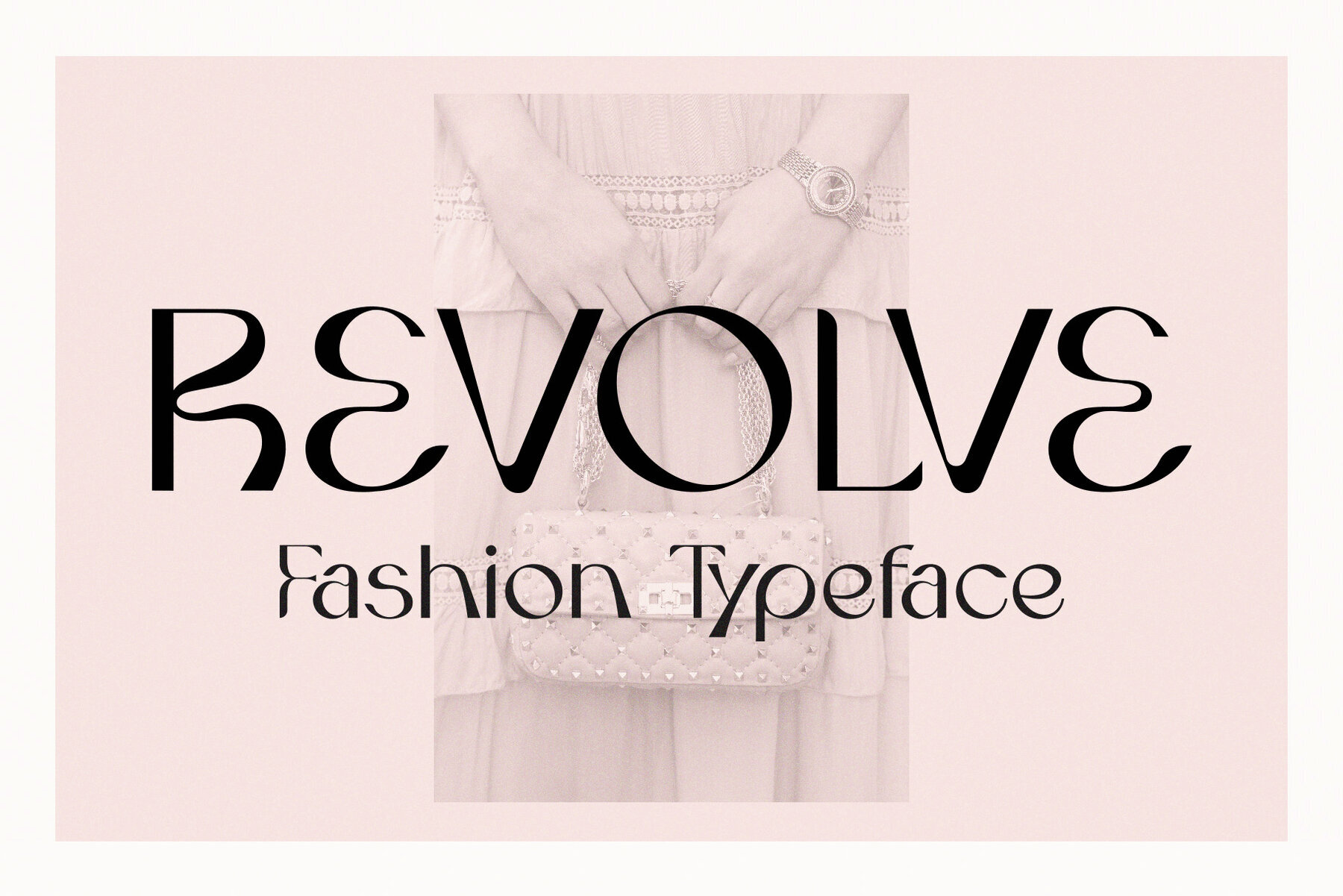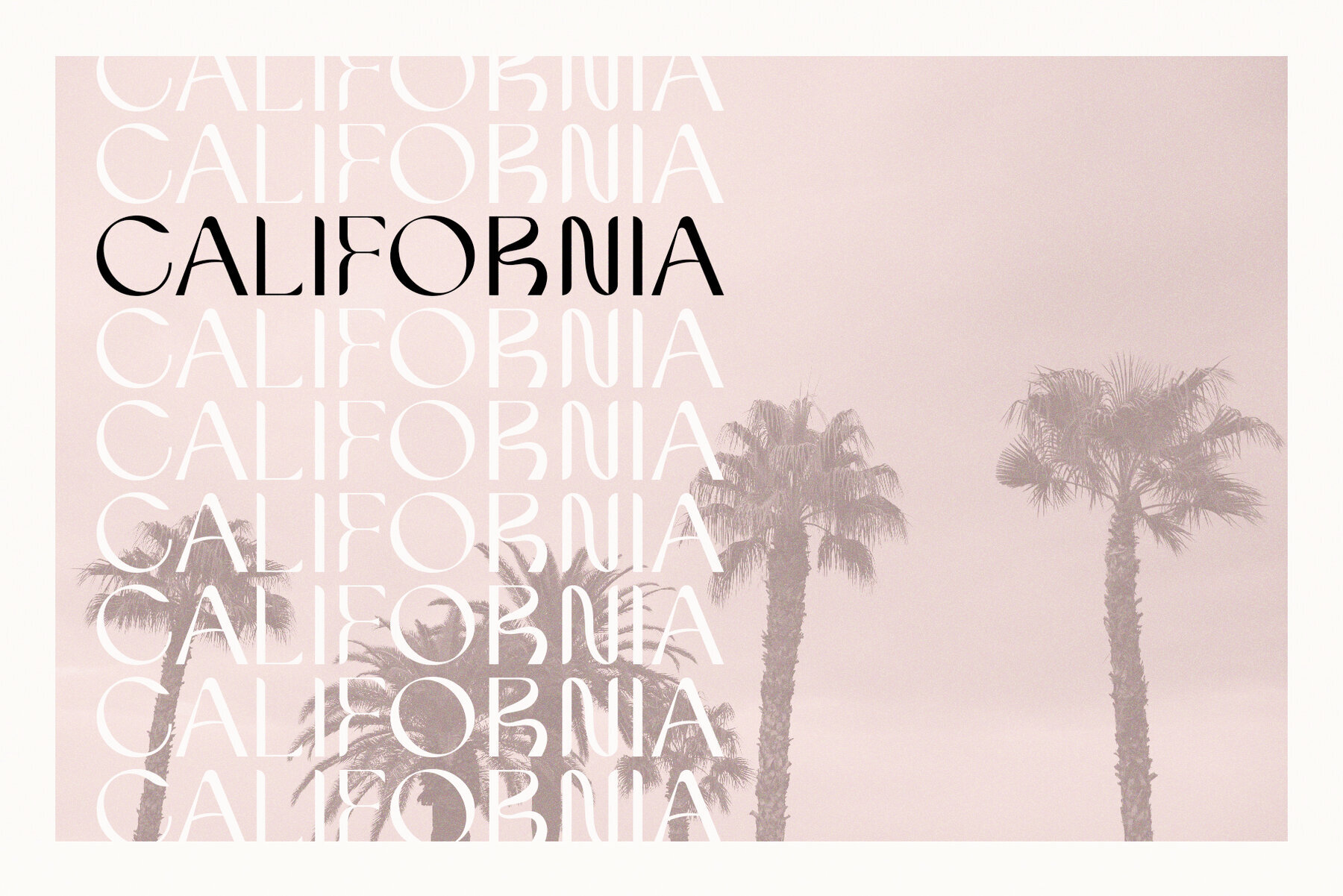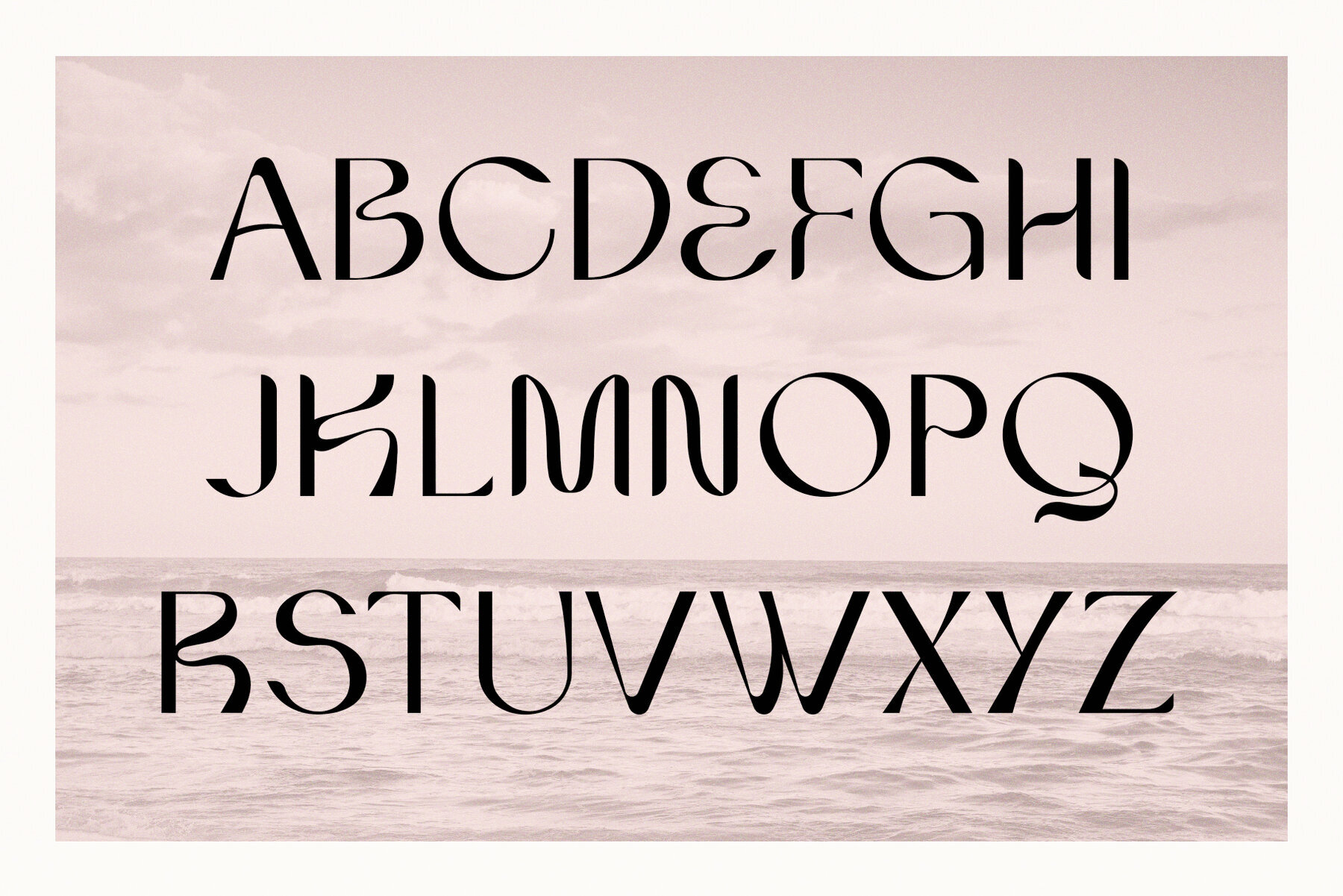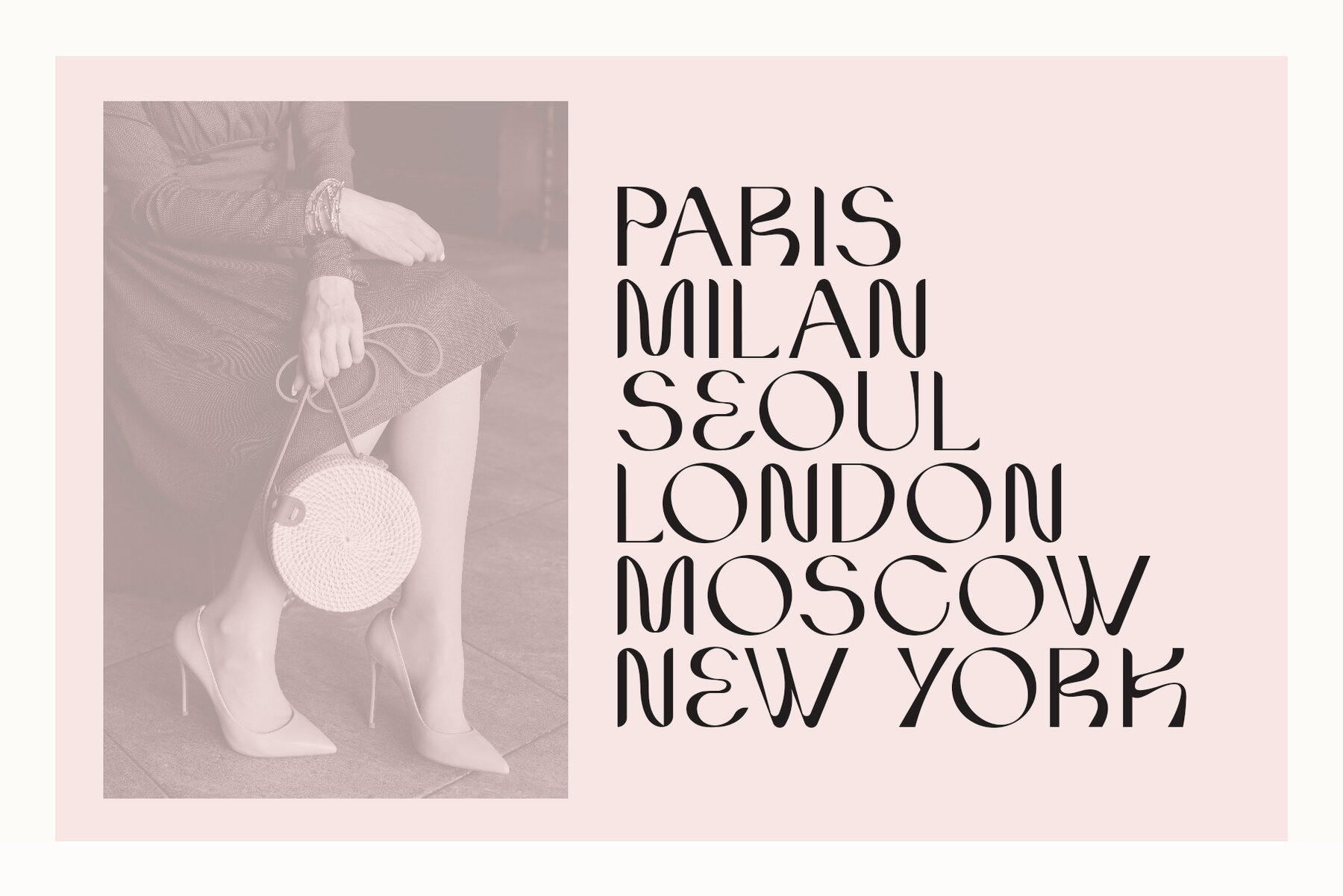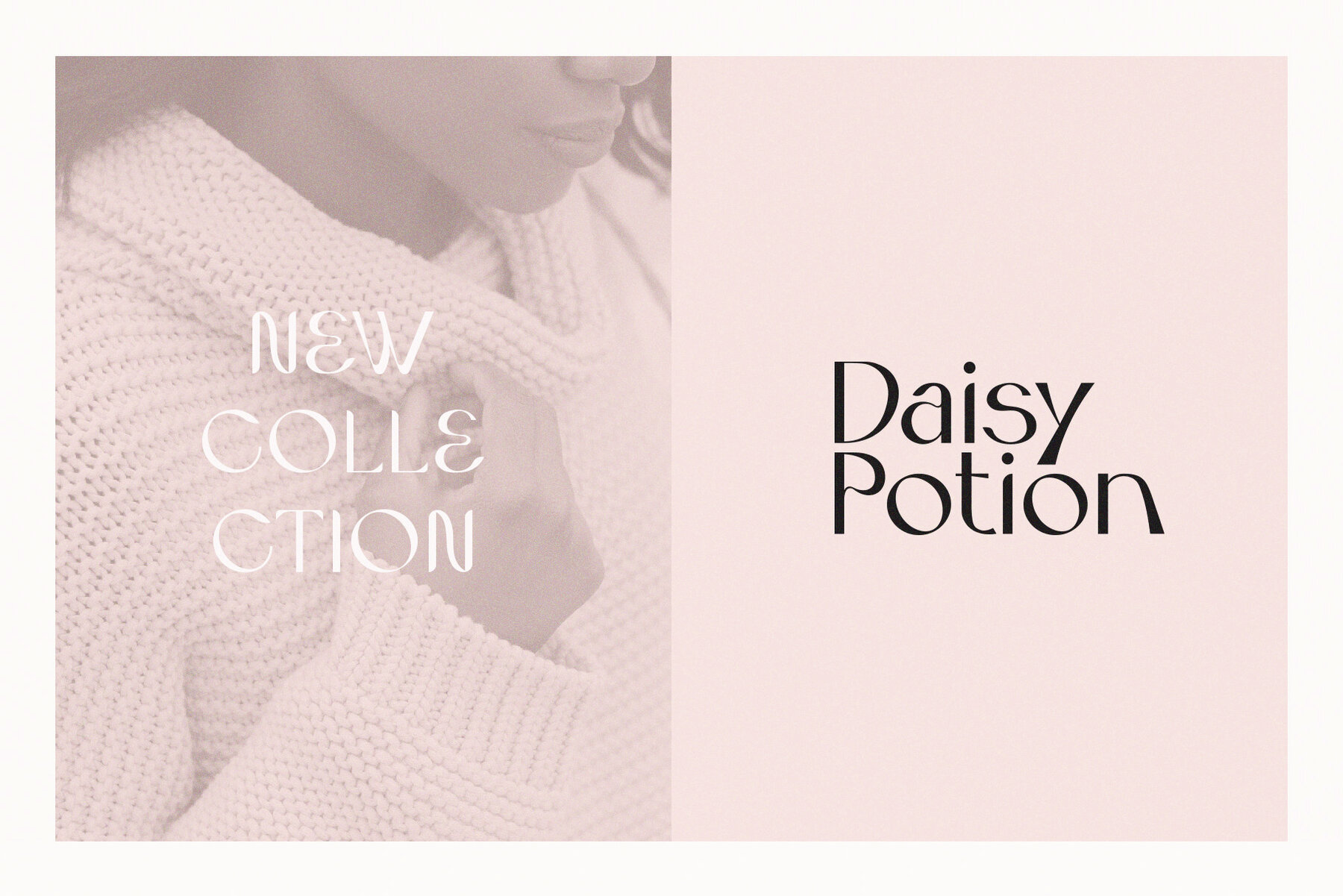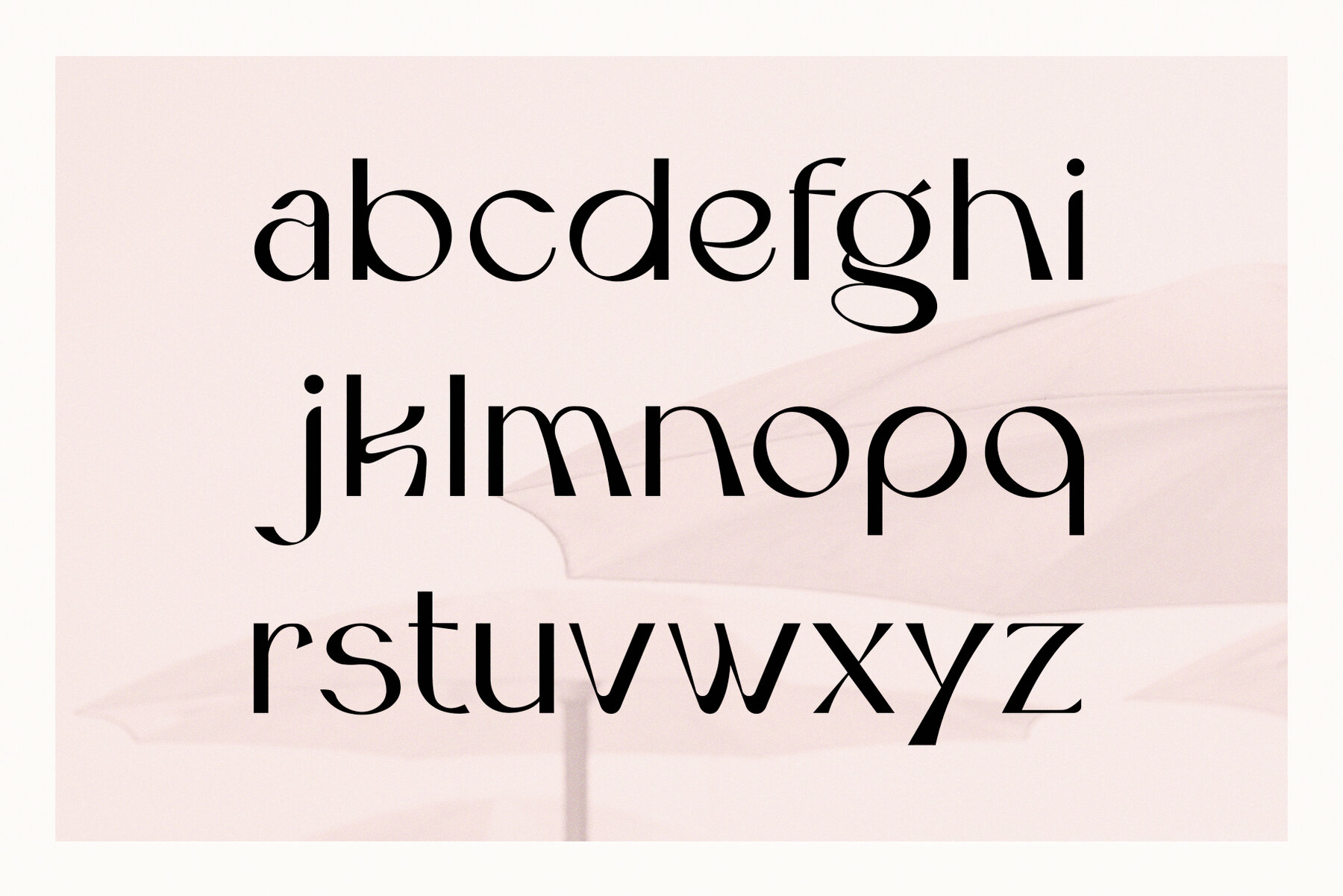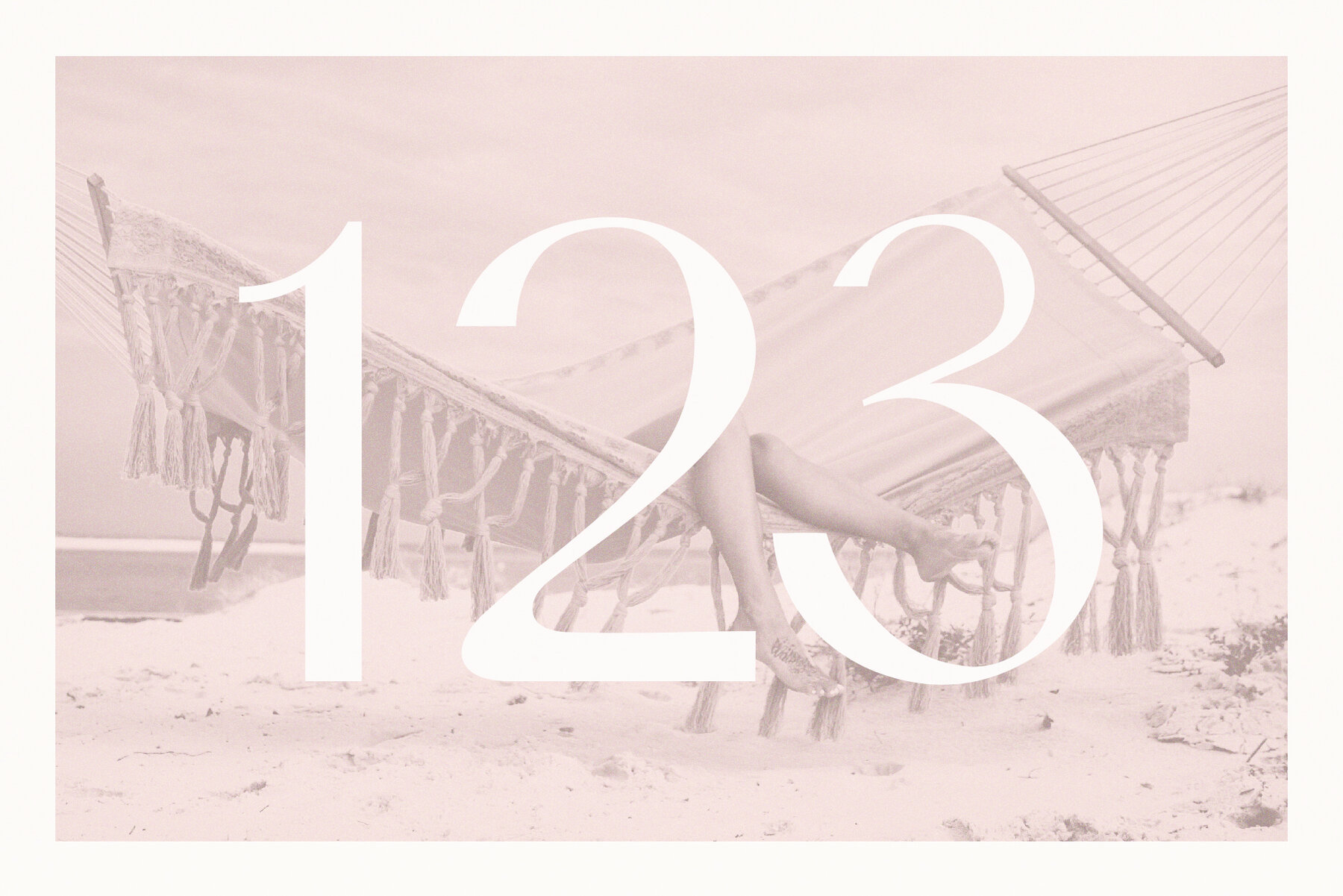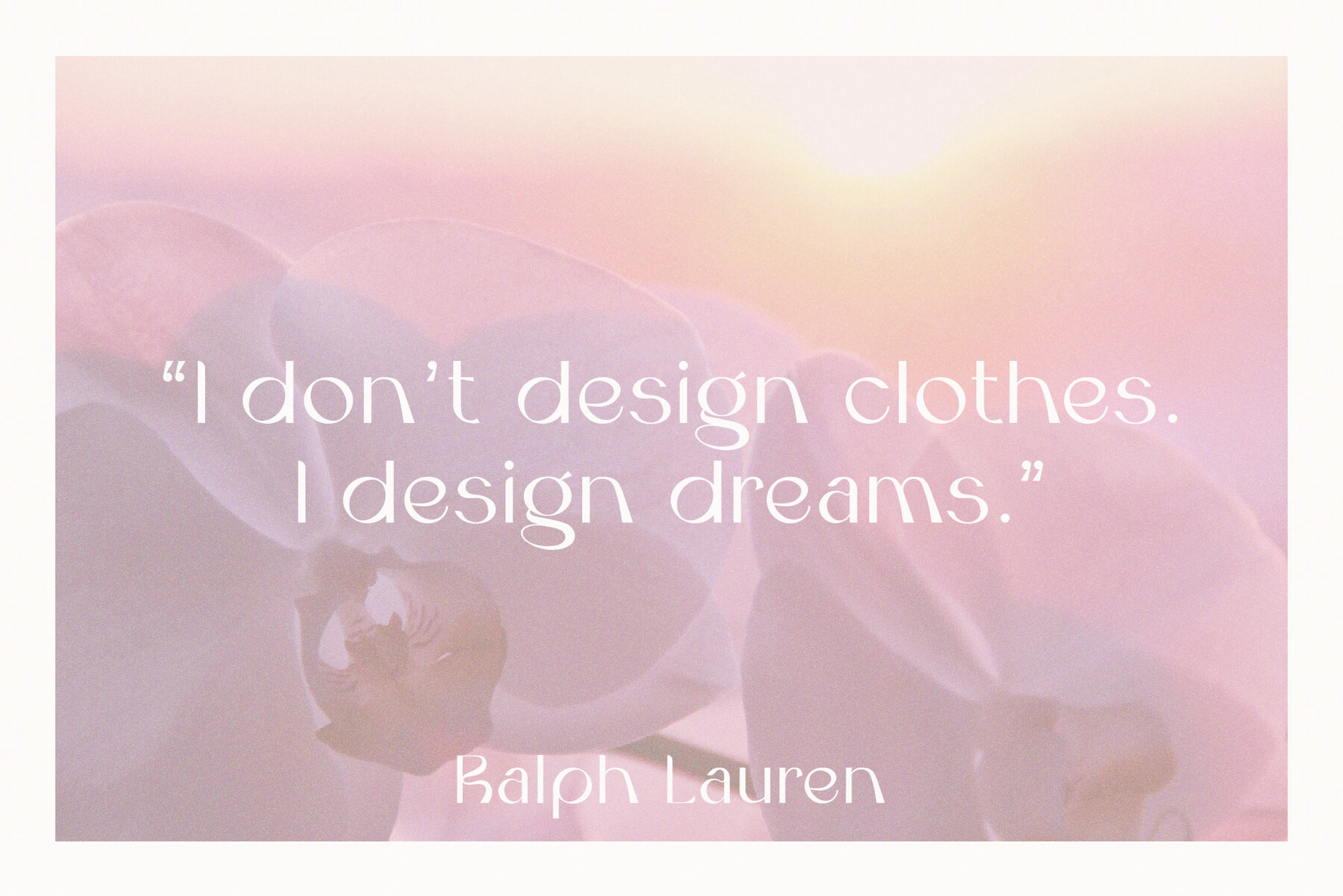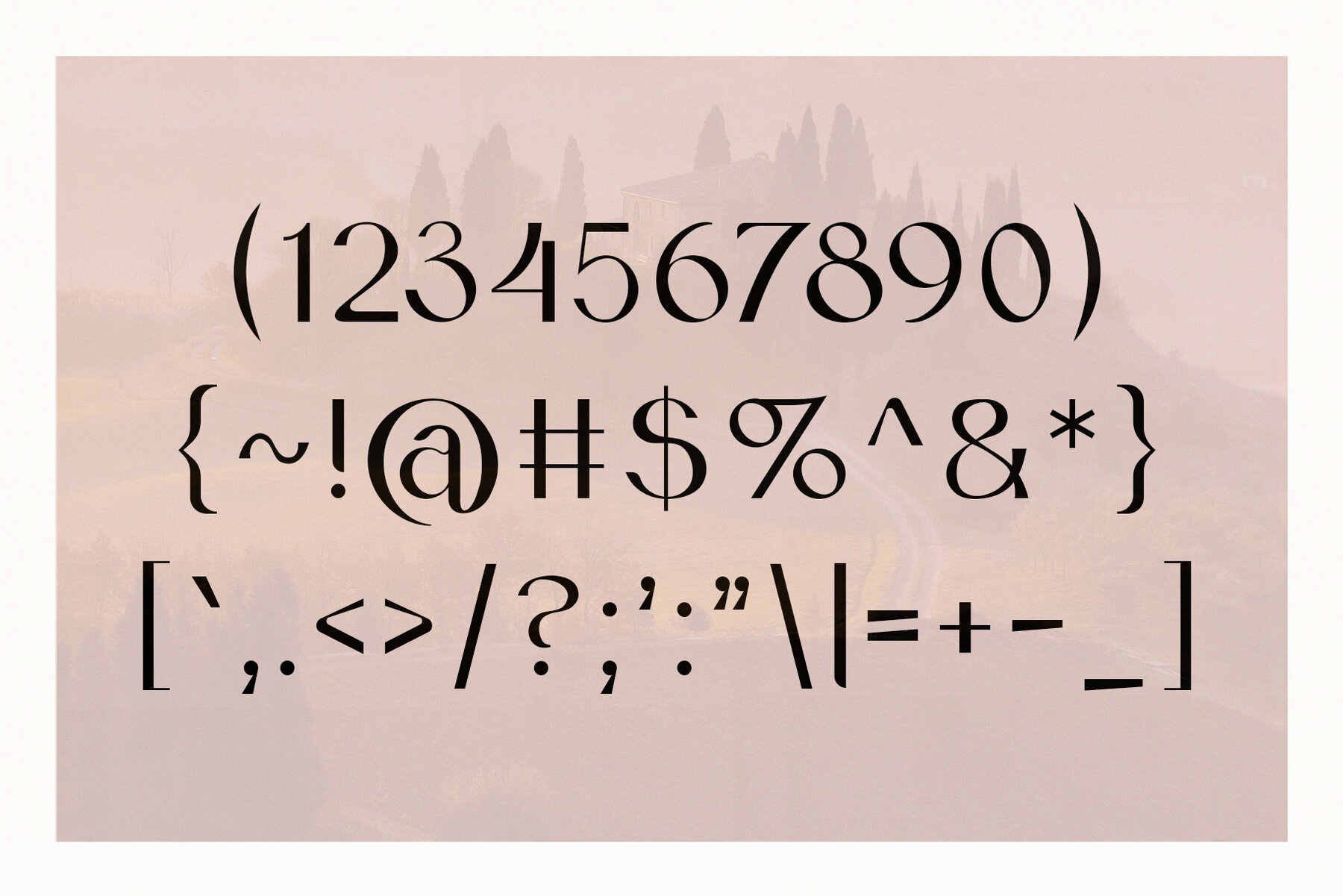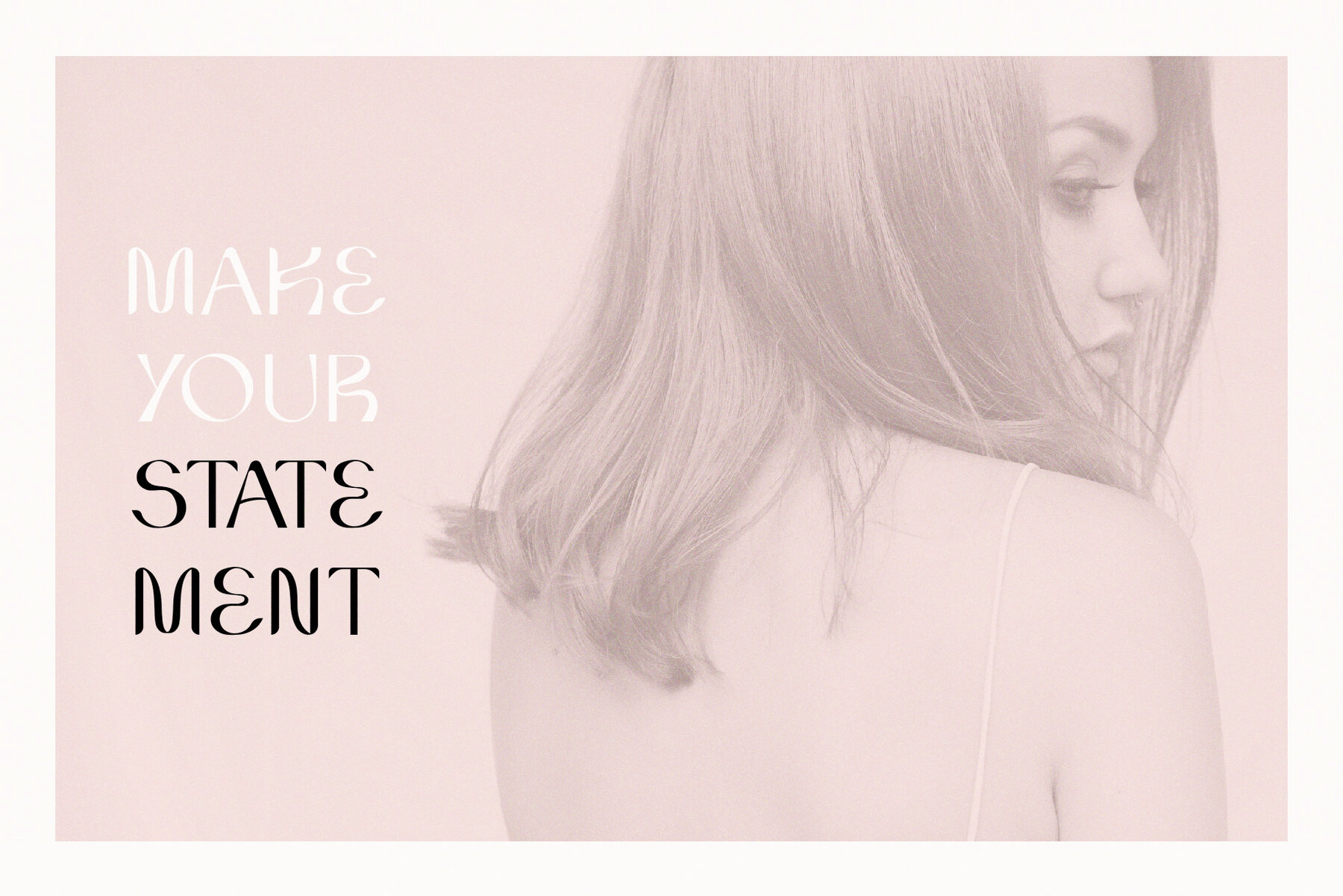
Revolve Font
Revolve Regular
Revolve is a sophisticated typeface inspired by the elegance of fashion magazines. Its thick-thin strokes create a refined aesthetic, ideal for a wide range of high-end designs. Whether you're working on branding projects, social media graphics, or advertising campaigns, Revolve can add a touch of classic charm to your work.
Perfect for mood boards, packaging, editorial layouts, and striking headlines, Revolve offers versatility while maintaining an air of elegance. This typeface is designed to capture attention and convey a sense of style and professionalism in any application.